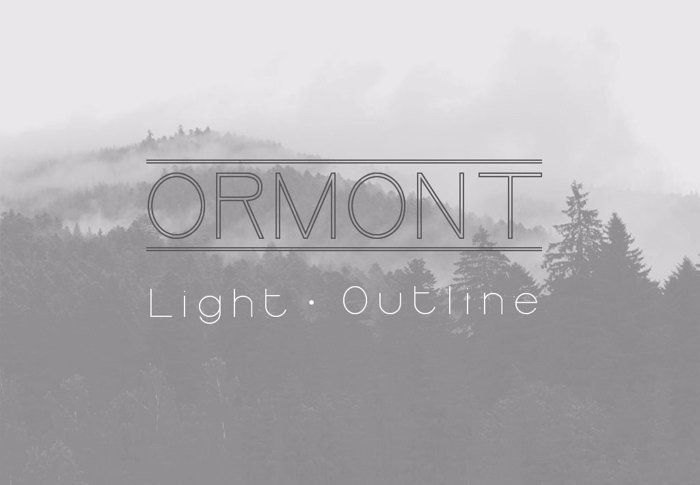
Ormont Sans Font
Ormont Font is inspired by famous logos. It’s simple, yet classy, and was made with precision and measured.
It’s perfect for logos & branding, photography, invitations, watermarks, advertisements, product designs, stationery, wedding designs, labels, product packaging, and much more!